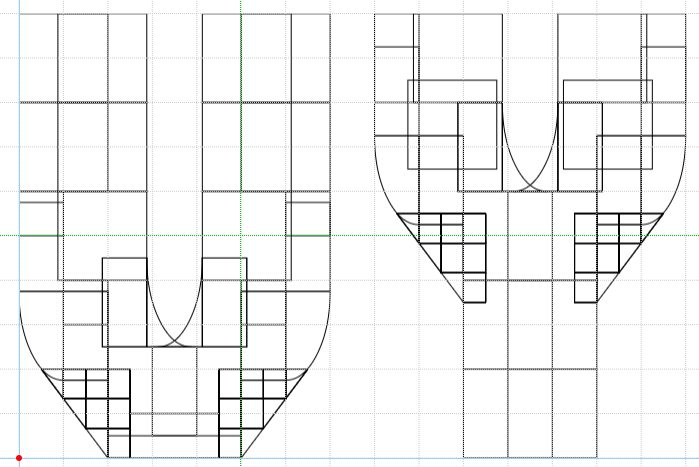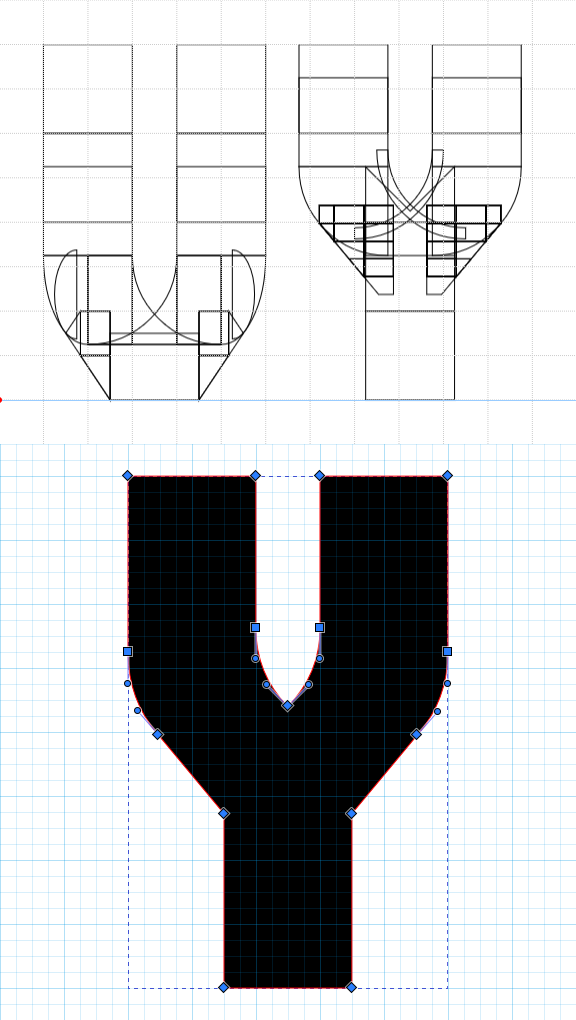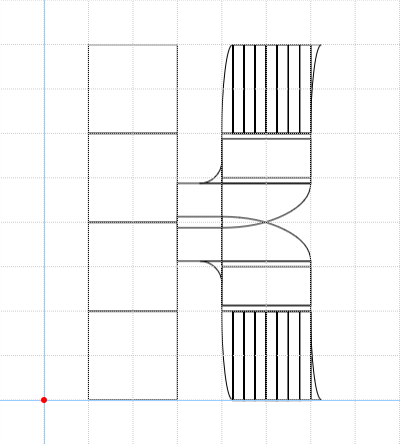
My take on Futura Display. The original has some odd details and inconsistencies, so I made my own version. Some compromises had to be made though... A few alternate characters are in the private use area.
Decent work. The diacritical marks need a bit of tinkering (e.g., the diaresis is too big). The design is simple and consistent. The text is very pleasant to read. Ferredoxin sounds like a medication or supplement for iron deficiency. Is it intentional? 10/10
@Frodo7 Thanks for the comment. Ferredoxin is an iron-sulfur protein; I chose the name when looking up terms with the initials FD (as a nod to Futura Display).
damn looks so smooth and cool
Clean and consistent. The sample text looks great at different sizes.
I wonder how you managed to get letters like V and Y to line up so well (transitions between diagonal and curve), despite FontStruct limitations?
@Bryndan W. Meyerholt (BWM) Some combinations allow for such transition with barely noticable seam. Yet here I suspect something like this?
@BWM Petruuccio is close; this is what it looks like. I actually managed to find the perfect transition on Y:
I wonder what font editor that is at the bottom of the sample above?
It's Inkscape
how is that even possible?!
Holy stromboli, that's amazing! I don't suppose you have a diagram of how you did the gentle curves on K, like with v and y, do you?
@mattsteve Thanks! The K is fairly simple:
The solidus is so good, V. Sarela (@Yautja)!
V. Sarela (@Yautja), I've not been in this for like…too long, so I guess I'll take a look at some Top Pick, and I did notice that Y with nodes and stuffs, how did you do that in the UI, and can you alter the nodes direction and length like in FontLab?
By the way, great Futura Display recreation tho, I thought that was some Futura Now ads in the Top Pick at first
@Kiên Trung: Thanks for the comment, the node view is from Inkscape.
“and I did notice that Y with nodes and stuffs, how did you do that in the UI, and can you alter the nodes direction and length like in FontLab?”
no, fontstruct will never have nodes for bezier curves